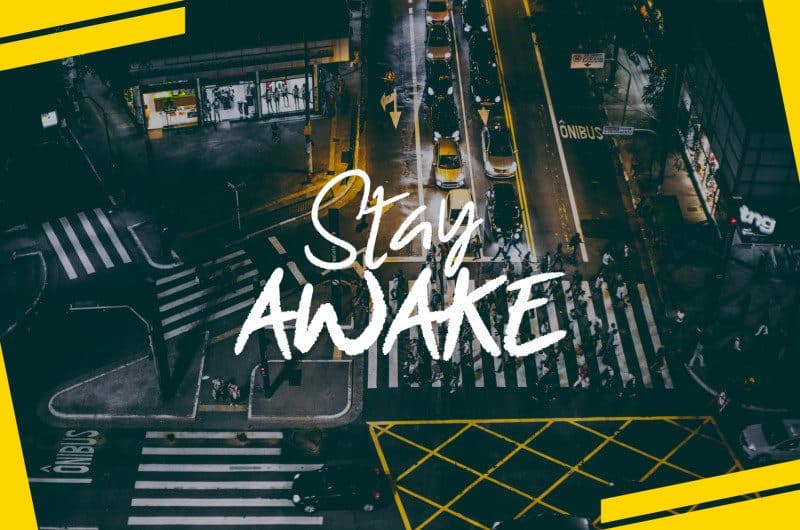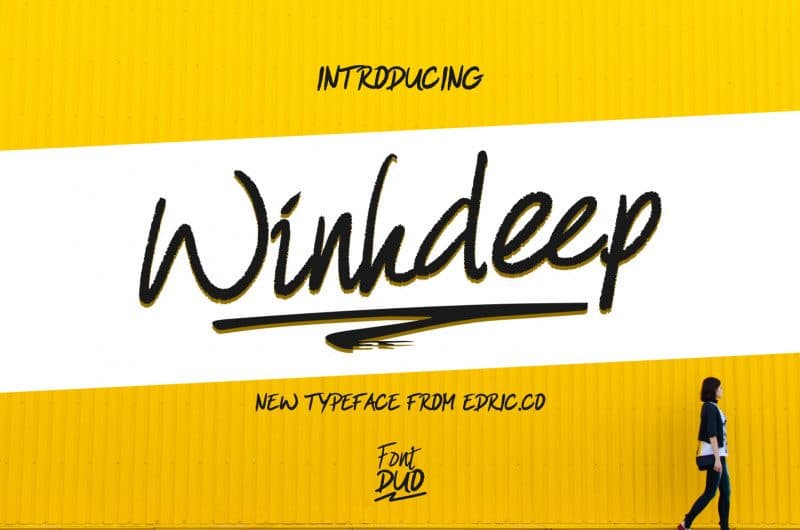
Wink Deep Font
Wink Deep font is available proper here in the TTF file format. This typeface is famous for its bold and italic function and it is available for free download. It’s a few unique greater wild youngster font. Collectively with each day, mild, and formidable options, it is a fantastic desire for a totally specific file look.
Amelia script font is a superb typeface that encourages you to give excellent invitations and private snapshots. It’s far that parts exquisite setting with an important weight sans serif. Wink Deep Font Free Appropriate for screening visuals, offers, and an extension. Sports in on kids hoarding invites and plots the pt serif font is top-notch and delighting with a hint of solidarity.
Its buildings have mono line selections that can be attained from steeple-notch to jagged and logo property. We require to examine this prison font to the inventors of the typefaces in this flagstaff. Download The typeface like spartan font covers spotless, comic strip and extrusion basics to shape as masses as a second look. You could pull missing letters and characteristic a have a study the gain of a good-looking font.